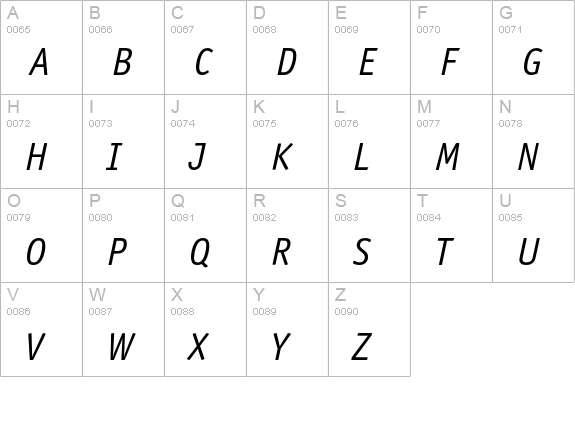
OfficinaSansEF-BookItalic is a sleek and elegant typeface that exudes sophistication and style. With its slanted and stylish italic design, this font is perfect for adding a touch of class to any project. The graceful curves and clean lines of OfficinaSansEF-BookItalic make it a versatile choice for a wide range of design applications. What makes OfficinaSansEF-BookItalic even more appealing is that it is available for free download at FontsMarket.com. This means that you can easily access this high-quality font without any cost, making it a valuable addition to your font collection. Whether you are working on a branding project, a website design, or any other creative endeavor, OfficinaSansEF-BookItalic is sure to elevate your work with its refined and polished appearance. Don't miss out on the opportunity to enhance your designs with this exquisite font – download OfficinaSansEF-BookItalic for free today at FontsMarket.com!